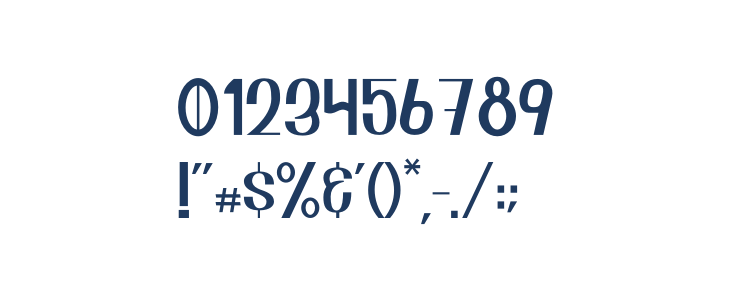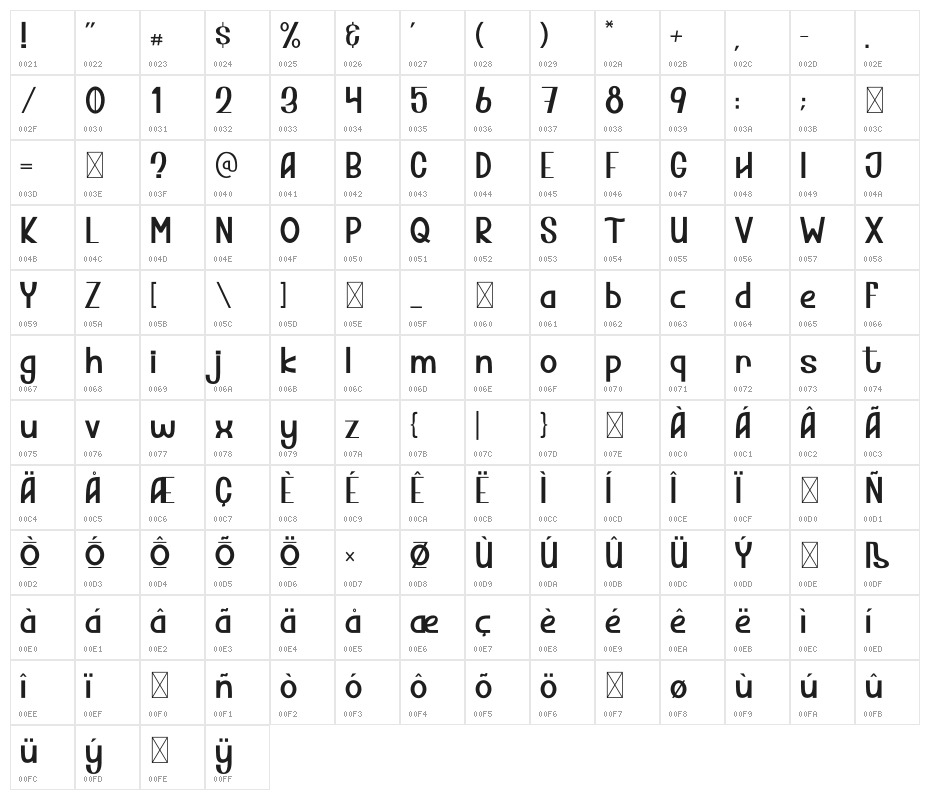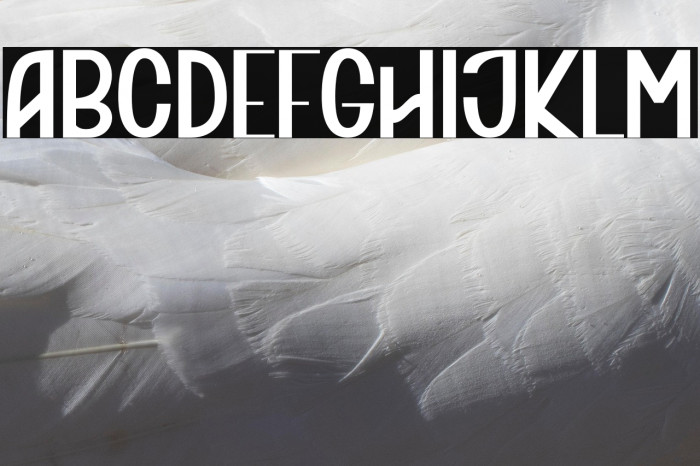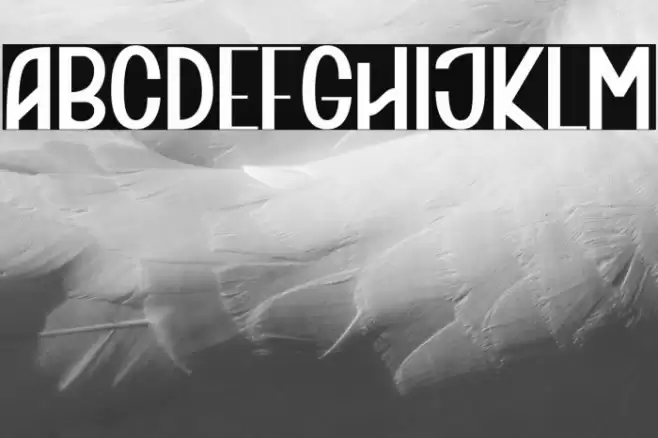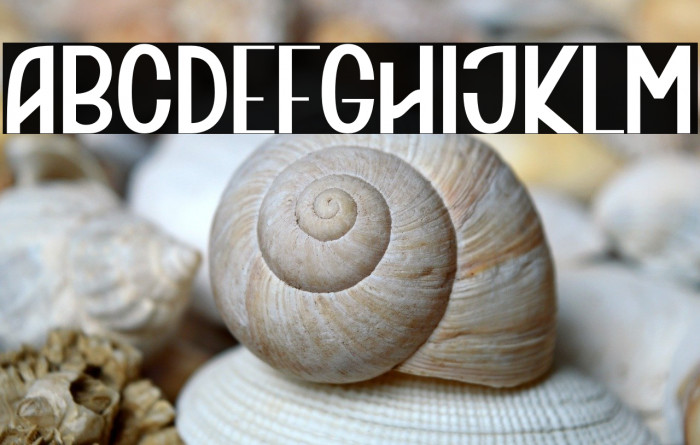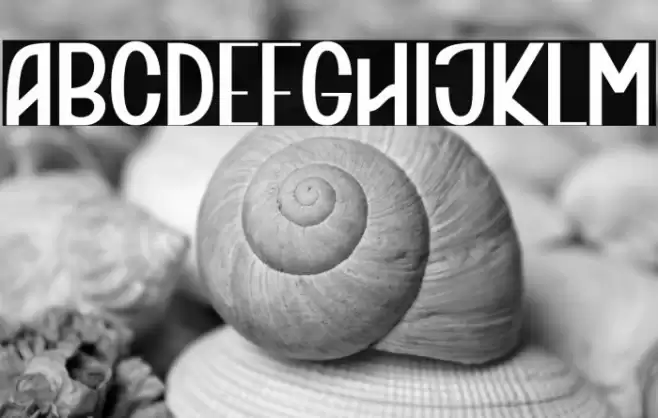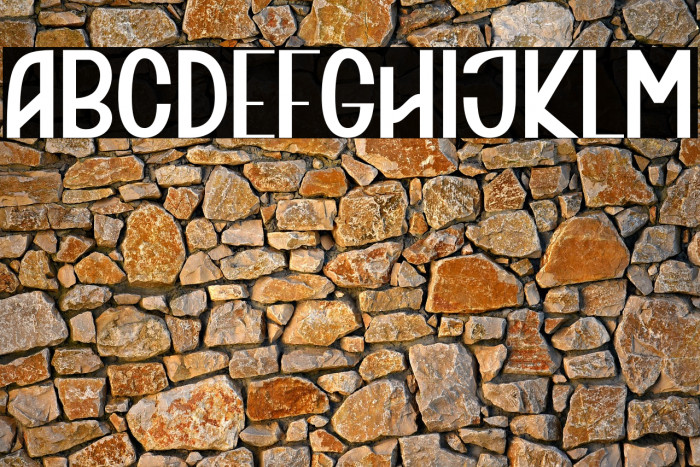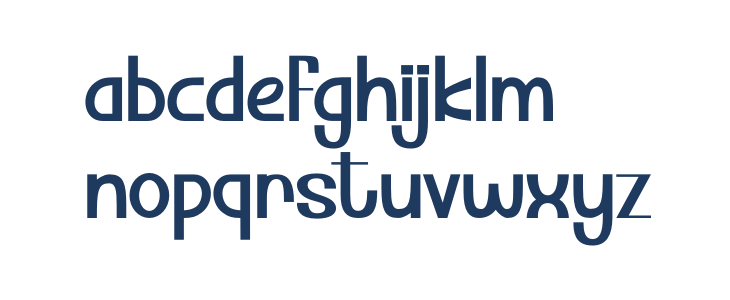
Thorsley Font
Thorsley Description
This font features a unique blend of geometric and modern design elements. The uppercase letters are bold and striking, with a slightly condensed appearance that gives them a strong presence. The lowercase letters maintain a consistent style, with rounded edges that add a touch of softness to the overall look. Numbers are designed with a similar aesthetic, ensuring uniformity across all characters. Special characters are crafted with attention to detail, making them easily recognizable and functional. The font's overall style is both contemporary and versatile, suitable for a variety of design projects.
| Proposed Projects | Ideal for branding, advertising, posters, and digital media projects that require a modern and bold typeface. |